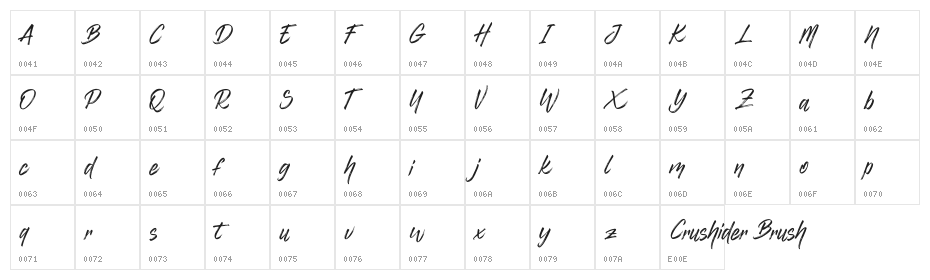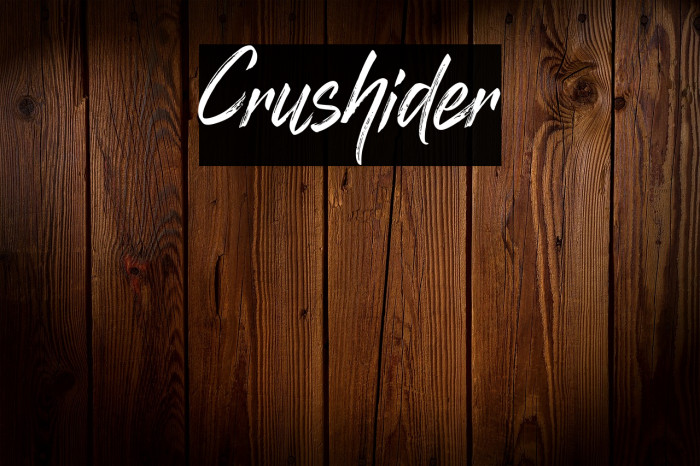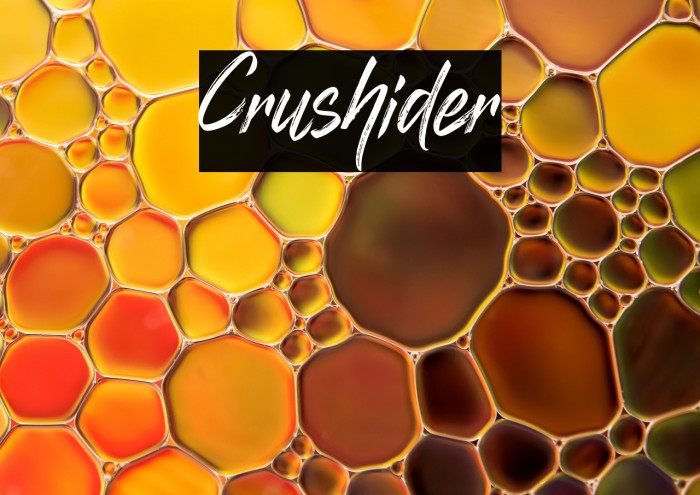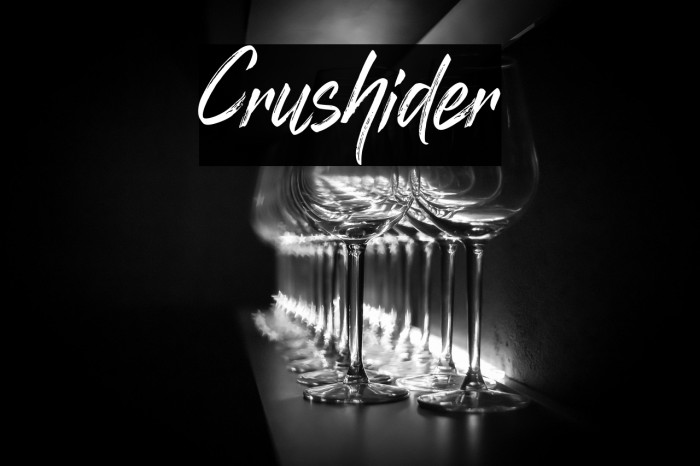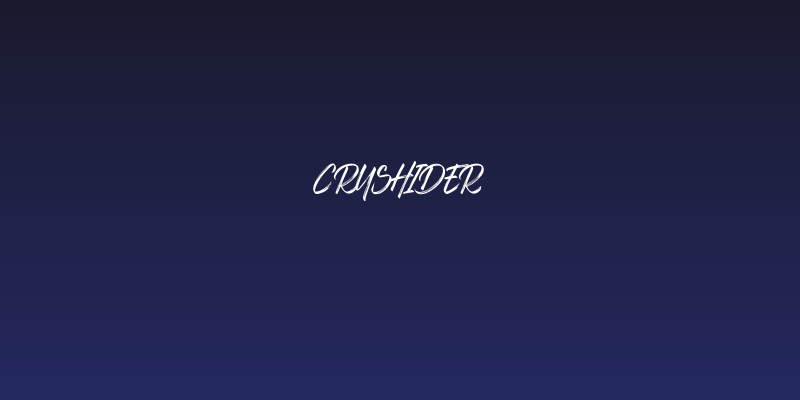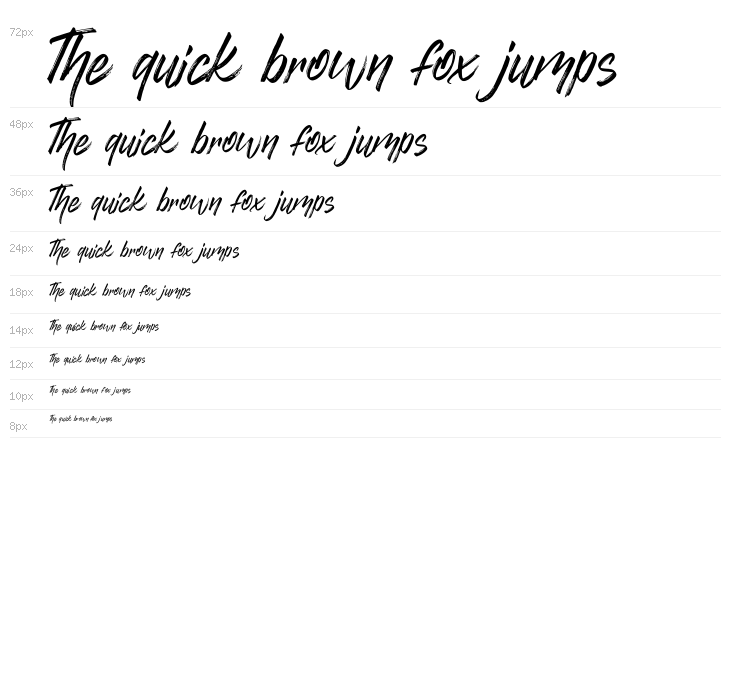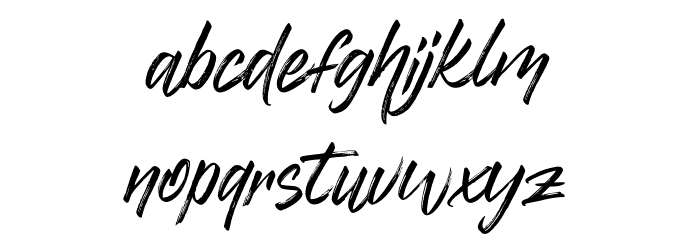
Crushider Font
Crushider Description
This font features a dynamic and energetic brush script style, characterized by its bold and expressive strokes. The letters exhibit a hand-drawn appearance, with varying thickness that adds a sense of movement and fluidity. The uppercase letters are particularly striking, with elongated strokes and a slight slant that conveys a sense of urgency and excitement. The lowercase letters maintain this lively aesthetic, ensuring consistency across the typeface. The font's overall look is both modern and artistic, making it ideal for projects that require a personal touch or a creative flair. The absence of special characters suggests a focus on alphabetic and numeric characters, which are rendered with a sense of spontaneity and artistic freedom.